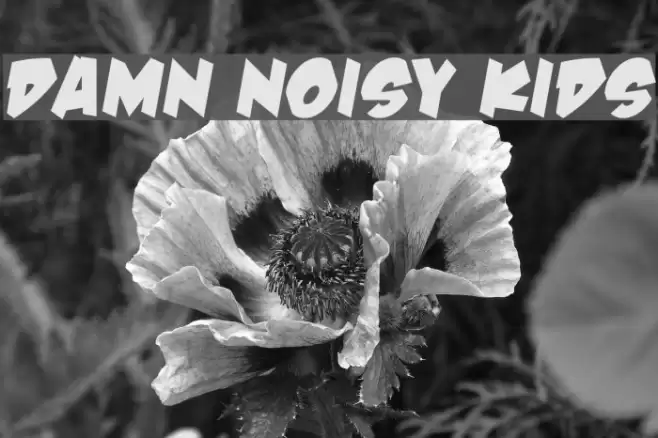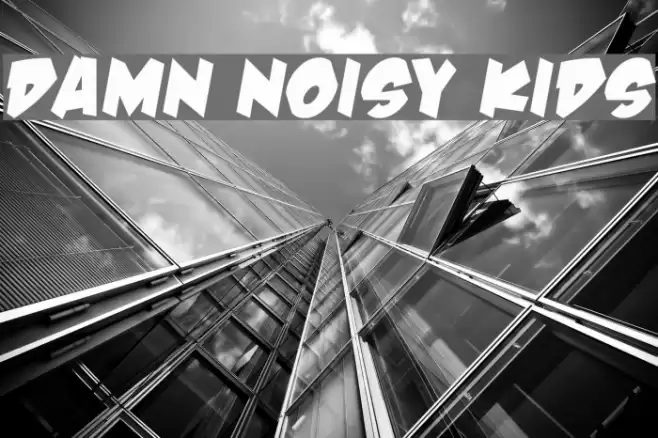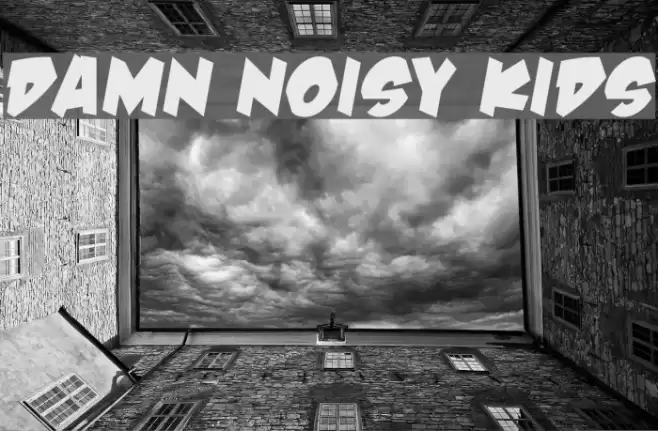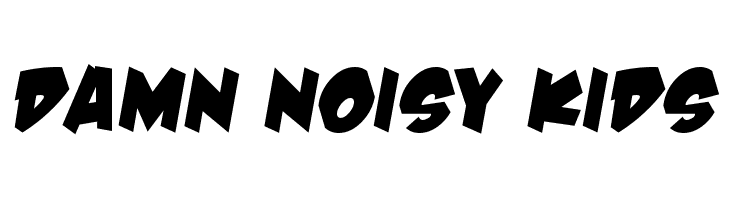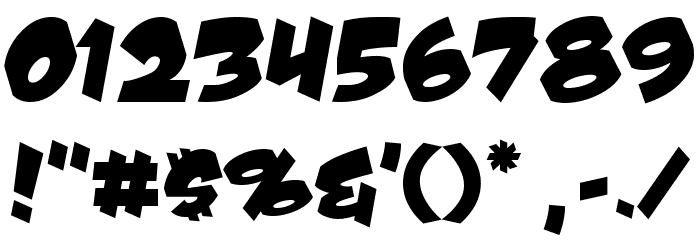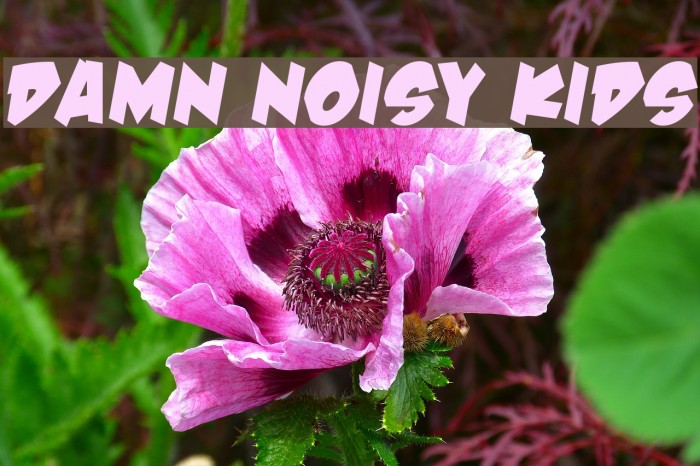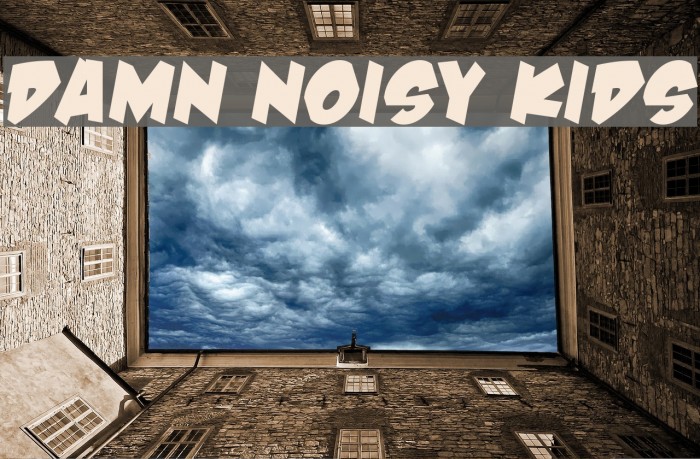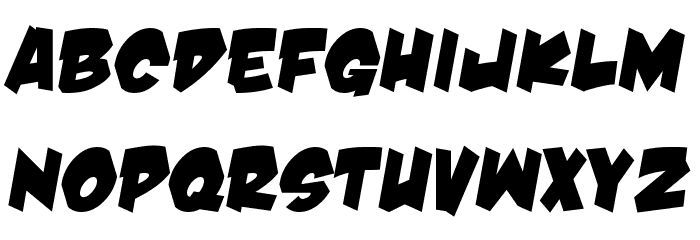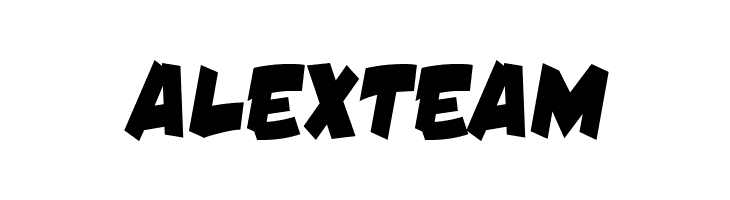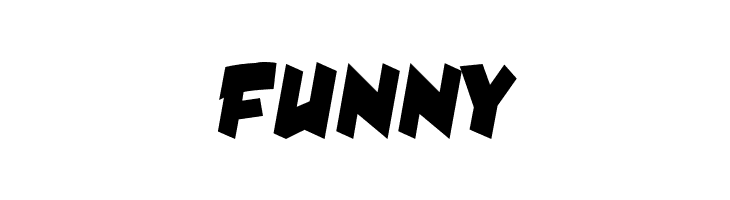
Damn Noisy Kids Font
Damn Noisy Kids Description
This font features a bold and energetic style with sharp, angular edges and a playful, graffiti-like appearance. The characters are heavily stylized, with exaggerated forms that convey a sense of movement and dynamism. The uppercase and lowercase letters maintain a consistent design, while the numbers and special characters complement the overall aesthetic. The font's unique and striking appearance makes it ideal for projects that require a bold statement or a youthful, rebellious vibe.
A bold, graffiti-inspired font with sharp, angular edges and dynamic style from Uncategorized fonts.
- Proposed Projects: Perfect for street art designs, youth-oriented branding, music album covers, and event posters.
- Overall Style: Modern, Urban